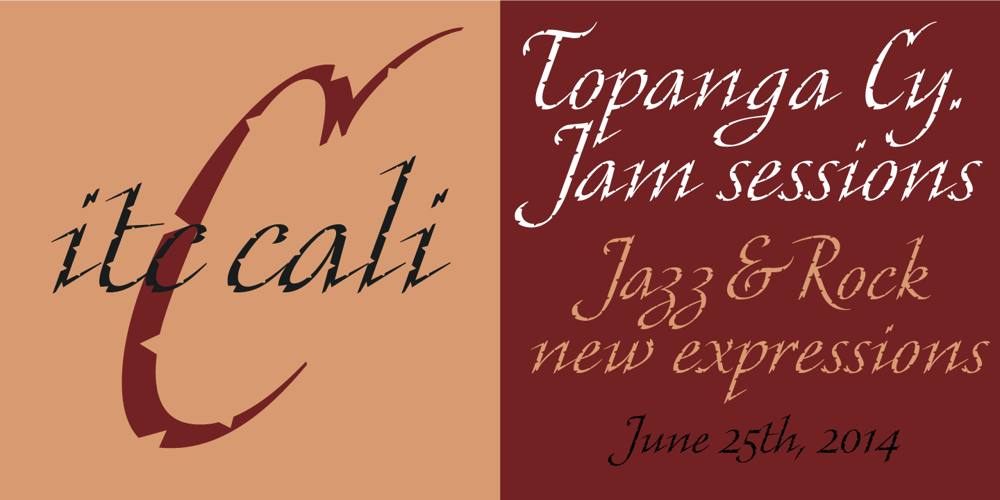
ITC Cali
ITC Cali font
ITC Cali Font Family was designed by Luis Siquot and published by ITC. ITC Cali contains 1 styles and family package options. There are a few professions in which being left-handed confers an advantage-think of the great southpaw pitchers in major league baseball, like Sandy Koufax. Now, think of all the great left-handed calligraphers. Not so easy, right? Here’s a hint: Luis Siquot.Far from being an advantage, Siquot’s lefty orientation proved a hurdle to overcome. When I was young, I had serious problems writing,” he recalls. “If there was a lot of text, I almost always soiled the paper with wet ink as my hand followed the pen.” Then, a friend told Siquot about a special store in London that catered to left-handed people. It was there that he found an Osmiroid pen specially designed for left-handed calligraphers.ITC Cali is based on Siquot’s use of this pen. “Electronic scans of my calligraphy were the foundation of the design,” he says. “I was careful to leave in some imperfections to avoid an excessively mechanical look, and added the little notches in the strokes to imitate the texture of writing on a rough cotton paper.”ITC Cali works equally well in text and display sizes, but it is a calligraphic script, Siquot warns, “and shouldn’t be set in all capitals.” That said, ITC Cali is a remarkably versatile design, well-suited to a variety of communication projects.”